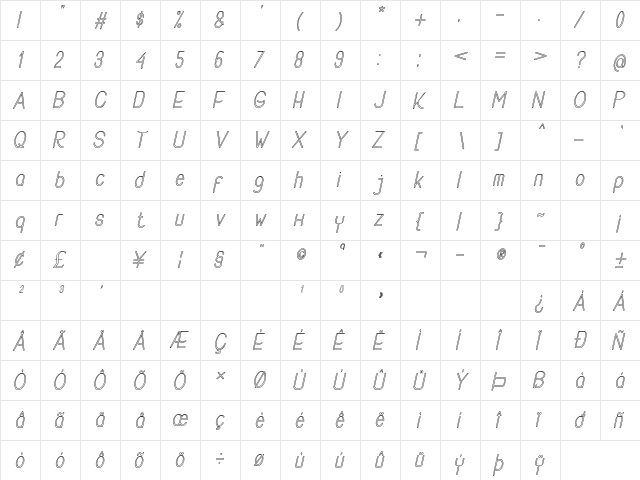
Buon Umore Hollow Italic Italic
Design Context for Buon Umore Hollow Italic Typeface
Buon Umore Hollow Italic is a composed and adaptable typeface that performs quietly and consistently across a wide range of design contexts. Its italic angle brings a sense of urgency and motion to the letterforms.
Pro Tip: Use Buon Umore Hollow Italic for emphasis, pull quotes, and subheadings where its slanted energy can add rhythm to the layout.